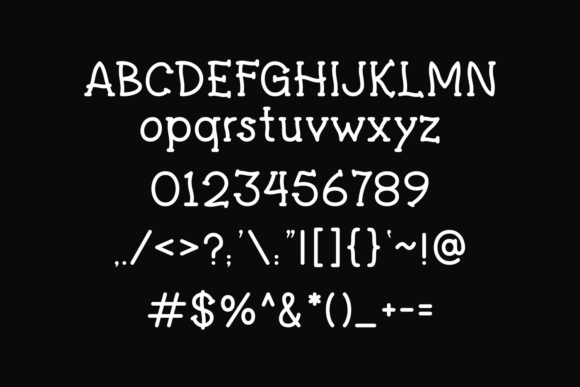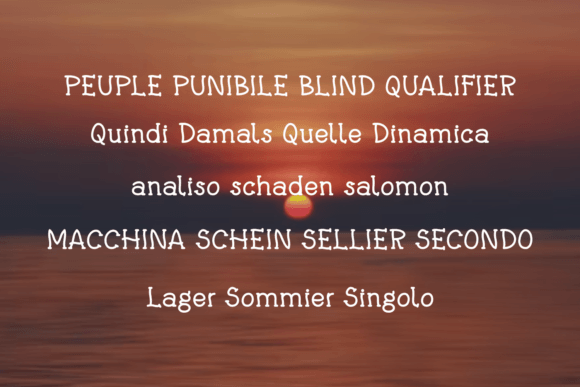
Introduction to Fineyin Font
Fineyin is a cool and unique serif font.
This font is neatly crafted and highly detailed Whatever the topic, this font will be a wonderful asset to your font library, as it has the potential to enhance any creation.
Key Features of Fineyin Font
Why Choose Fineyin Font?
Fineyin Font offers exceptional quality and versatility, making it a valuable addition to your design toolkit. Whether you’re creating for personal projects or commercial use, Fineyin Font delivers professional results.